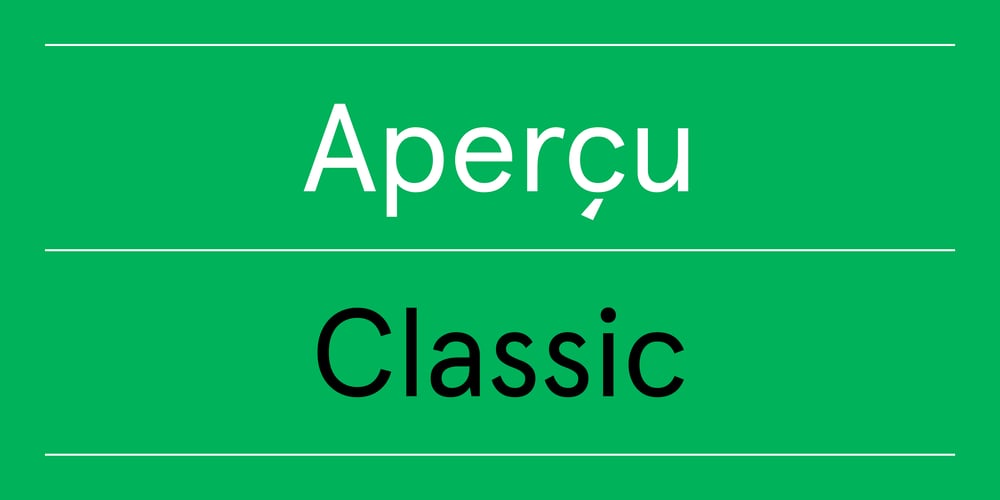
Apercu Font Family was designed by Colophon Foundry and published by Colophon Foundry. Apercu contains 16 styles and family package options. Drawing of Aperçu began in December 2009, and was tried & tested throughout a number of design commissions. Aperçu aimed to create a synopsis or amalgamation of classic realist typefaces: Johnston, Gill Sans, Neuzeit & Franklin Gothic into a contemporary flavor. A sum of parts from the outset, Aperçu builds upon these initial reference points to create an extensive and usable family.Since its release in August 2010, Aperçu has quickly found its position in the market, being used across a variety of different media and sectors around the world across a multitude of touchpoints. Utilized by leading visual institutions such as MOMA, Burberry, De Wiels, Zeit Magazine and the Walker Art Center amongst many others.